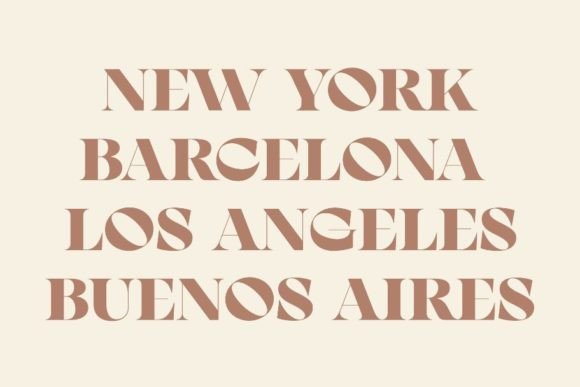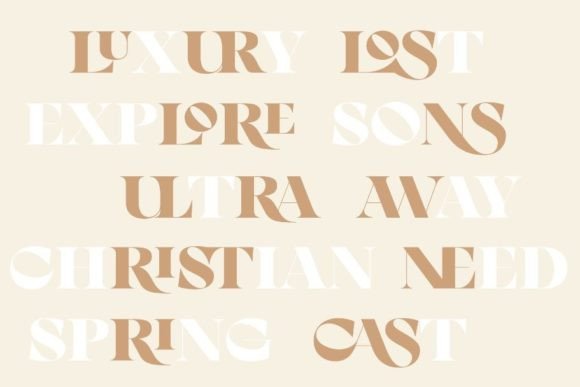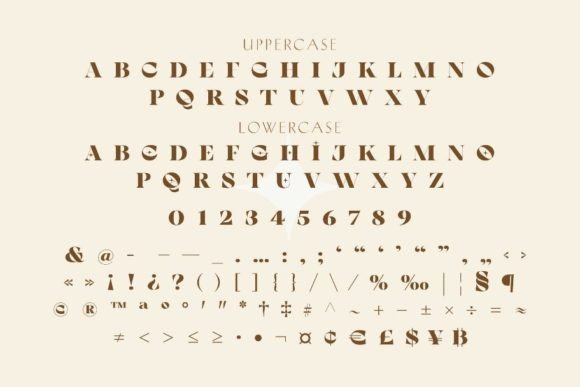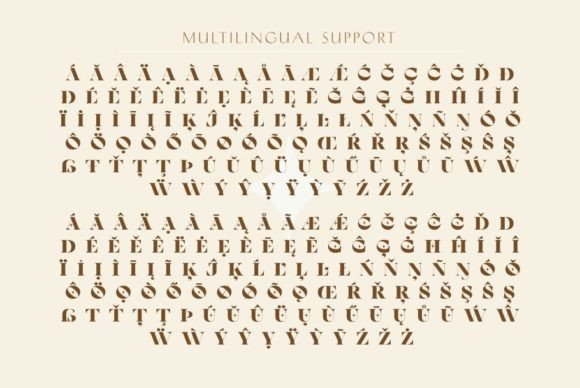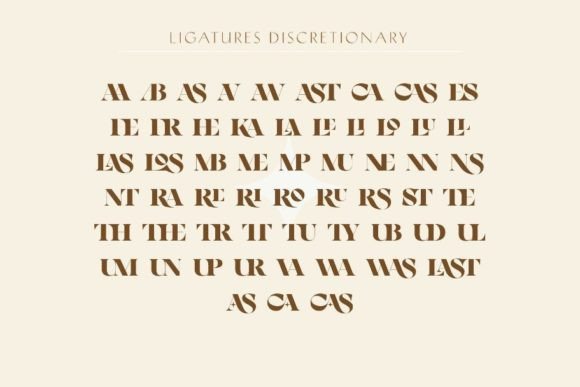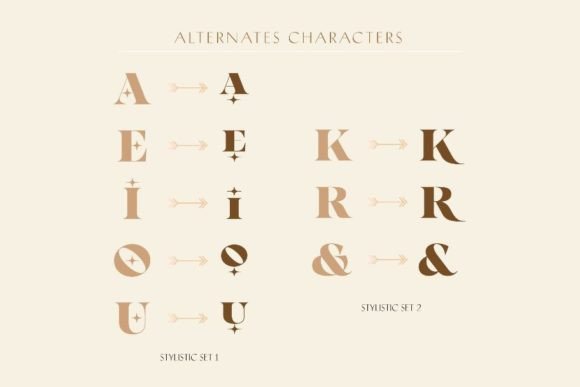
Discover the Elegance of Giorgia Font: Elevate Your Typography Game
In the world of typography, a good font can make all the difference in elevating your design to the next level. For designers and crafters looking for a touch of elegance and sophistication, Giorgia Font is an excellent choice. This beautiful serif font is designed to provide you with all the tools you need to create stunning typography that stands out. In this article, we’ll introduce you to the features and benefits of Giorgia Font and explore how it can enhance your design projects.
Introducing Giorgia Font
Giorgia Font is an elegant serif font that exudes refinement and luxury. Its classic design makes it perfect for a wide range of applications, from posters and branding to logotypes, headlines, and editorial design. The font comes equipped with a variety of discretionary ligatures, which provide you with the flexibility to create unique and visually appealing typography.
Key Features of Giorgia Font
• Elegant Serif Design: Giorgia Font boasts a sophisticated serif design that adds a touch of elegance to any project.
• Discretionary Ligatures: The font includes a range of discretionary ligatures, allowing you to create beautiful and intricate typography.
• PUA Encoded: Giorgia Font is PUA (Private Use Area) encoded, making it easy to access all the glyphs and swashes.
• Versatile: This font is suitable for a variety of design applications, including posters, branding, logotype, headlines, editorial design, and more.
Benefits of Using Giorgia Font
So, why choose Giorgia Font for your design projects? Here are just a few benefits of using this elegant serif font:
• Enhance Your Brand’s Visual Identity: Giorgia Font’s elegant design makes it perfect for creating a sophisticated brand image.
• Stand Out with Unique Typography: The font’s discretionary ligatures allow you to create unique and eye-catching typography that sets you apart.
• Save Time and Effort: With Giorgia Font’s PUA encoding, you can easily access all the glyphs and swashes, saving you time and effort in your design process.
• Versatility: This font’s versatility means you can use it across a range of design projects, from print to digital.
Design Applications for Giorgia Font
Giorgia Font’s versatility makes it suitable for a wide range of design applications. Here are some ideas to get you started:
• Posters and Flyers: Create eye-catching posters and flyers with Giorgia Font’s elegant serif design.
• Branding and Logotype: Use Giorgia Font to create a sophisticated brand image and logotype.
• Headlines and Editorials: Add a touch of elegance to your headlines and editorials with Giorgia Font.
• Digital Design: Giorgia Font is also suitable for digital design, including website headers, social media graphics, and more.
In conclusion, Giorgia Font is an excellent choice for designers and crafters looking for an elegant serif font that can elevate their typography game. With its discretionary ligatures, PUA encoding, and versatility, Giorgia Font provides everything you need to create stunning typography. Whether you’re working on posters, branding, logotype, headlines, editorial design, or digital design, Giorgia Font is a great addition to your font library.